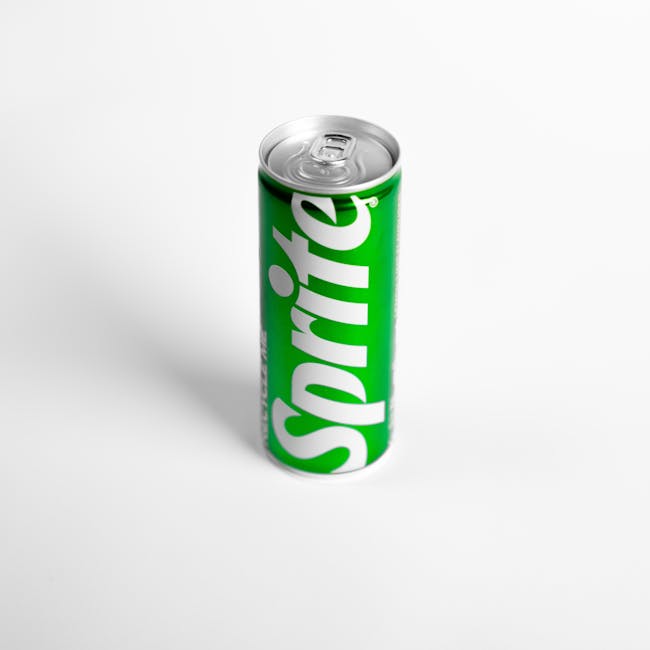
What is Logo Typeface
What is Logo Typeface?
When we think of iconic brand identities, logos often come to mind first. But the magic behind a memorable logo often lies in the unassuming details, such as the logo typeface. You might wonder, why does the typeface matter so much? The typeface of a logo isn’t just about choosing a pretty font; it’s about embodying the brand’s essence and communicating it with flair.
Understanding Logo Typeface
Definition and Characteristics
At its core, a logo typeface refers to the specific design of letters used in a company’s logo. The characteristics that define an effective logo typeface include readability, uniqueness, and alignment with brand identity. A good typeface should be easy to read at various sizes and distances while also standing out as distinct and recognizable. It’s not just about aesthetics; it’s about creating a visual language that speaks the brand’s personality.
Importance in Branding
Why does the logo typeface play such a crucial role in branding? Simply put, it helps in building brand recognition and shaping consumer perception. The typeface can evoke emotions and set expectations. For instance, a playful, rounded typeface might convey a sense of fun and approachability, while a sleek, minimalist font might suggest sophistication and modernity. Typography forms a fundamental part of how a brand communicates its values and tone, as discussed in 325’s insights on typography.
Choosing the Right Logo Typeface
Factors to Consider
Selecting the right typeface for your logo isn’t just about personal preference. It’s a strategic decision that involves several factors. Consider your target audience—what type of typeface would resonate with them? Look at industry standards; certain industries have typographic norms that can guide your choice. Your brand personality should also heavily influence your decision. A brand with a quirky and fun personality might opt for a whimsical typeface, whereas a law firm might choose something more traditional and serious.
Serif vs. Sans-serif
One of the foundational decisions in choosing a logo typeface is whether to go with a serif or sans-serif font. Serif fonts, with their small decorative lines at the end of characters, often convey a sense of tradition and authority. They’re commonly used by brands seeking to project reliability and heritage. On the other hand, sans-serif fonts are clean and modern, often used by brands aiming for a contemporary and straightforward image. Each choice sends a different message and can significantly impact the brand’s perception.
Examples of Effective Logo Typefaces
Case Studies of Iconic Brands
Let’s take a look at some iconic brands to see how they’ve used typeface to their advantage. Coca-Cola, for instance, uses a custom script font that conveys tradition and joy, aligning perfectly with its brand image. Google’s logo typeface, simple and sans-serif, reflects accessibility and innovation, consistent with its mission to make information universally accessible.
Lessons Learned from Successful Logos
What can we learn from these examples? The key takeaway is that the typeface should be an extension of the brand’s voice. It should be consistent across all brand materials to strengthen brand recognition. Additionally, the typeface should be adaptable, able to maintain its integrity across various platforms and mediums.
Common Mistakes in Logo Typeface Selection
Overly Complicated Fonts
One of the most common mistakes is choosing fonts that are too complex. While intricate designs might look impressive, they can be hard to read and reproduce at smaller sizes. A logo should be legible and recognizable, whether it’s on a billboard or a business card. Avoiding overly complicated fonts ensures that the brand message isn’t lost in translation.
Neglecting Brand Consistency
Another pitfall is neglecting consistency. Your logo typeface should be consistent with the other elements of your brand identity. Inconsistency can confuse consumers and dilute the brand message. A cohesive brand identity creates a seamless experience for the audience, reinforcing the brand’s values and promises.
To sum it up, the logo typeface is more than just letters on a page. It’s a powerful tool that can enhance brand recognition, convey the right message, and connect with your audience on an emotional level. Whether you’re opting for a timeless serif or a modern sans-serif, make sure your choice aligns with your brand’s identity and speaks to your audience. Remember, the right typeface can make all the difference in how your brand is perceived. Choosing wisely is the first step toward crafting a memorable and impactful brand identity.